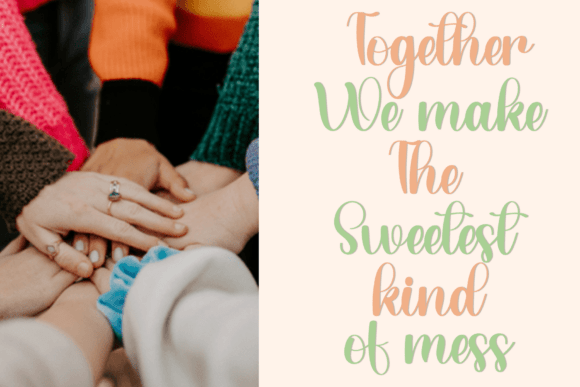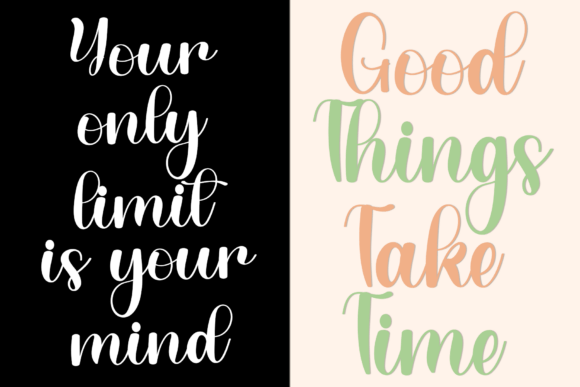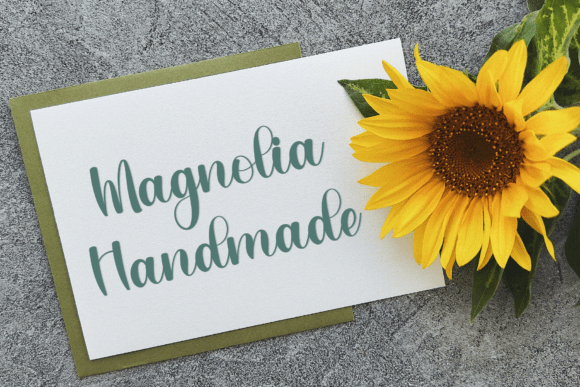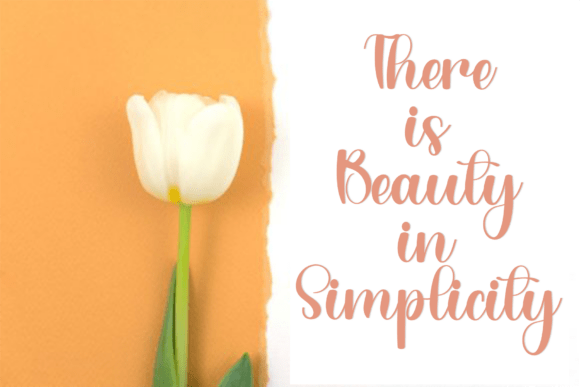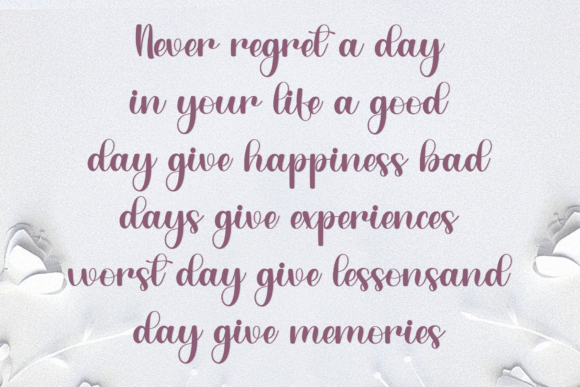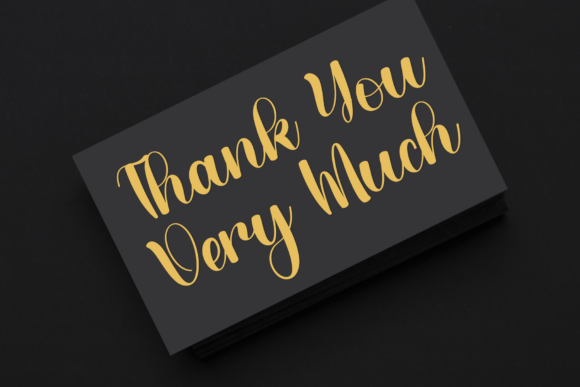
Bringing the Beach to Your Designs: A Deep Dive into the Beach Feeling Font
Ah, the elusive perfect font. You know, that one design element that can instantly elevate your project from meh to mesmerizing. I recall a particularly grueling design session where I was tasked with creating a vibrant beach party invitation. My usual go-to fonts just weren’t cutting it – they were either too bland, too ornate, or just plain mismatched the sunny, carefree vibe I was aiming for. That’s when I stumbled upon the Beach Feeling font, and let me tell you, it was love at first sight! ✨
What Makes Beach Feeling So Special?
The Beach Feeling font is a lovely script font that embodies the warmth and playfulness of a tropical sunset. Its bouncy, fluid letterforms and vibrant flow are perfect for capturing the essence of summer fun. Whether you’re working on travel branding, beach party invites, or sunny lifestyle blogs, this font is sure to bring a dose of Vitamin Sea to your designs.
- ✨ Playful yet elegant structure: The Beach Feeling font strikes the perfect balance between fun and sophistication, making it suitable for a wide range of design projects.
- ✅ Vibrant and energetic flow: The font’s fluid letterforms and lively rhythm instantly evoke the feeling of a tropical sunset.
- 💕 PUA encoded for easy access to glyphs and ligatures: With PUA encoding, you can effortlessly access the font’s amazing glyphs and ligatures, making it a breeze to add creative flourishes to your designs.
While the Beach Feeling font is an excellent choice for many design projects, there are a few minor considerations to keep in mind: 🤔
- ⚠️ Legibility at smaller sizes: As with many script fonts, Beach Feeling may lose some legibility when used at very small sizes. It’s best to use it at larger sizes (around 18-20pt or larger) to ensure optimal readability.
- ⚠️ Pairing with other fonts: While Beach Feeling is a stunning font on its own, it may require some care when pairing it with other fonts. Experiment with different combinations to find the perfect balance for your design.
The Story Behind Beach Feeling
While the true origins of Beach Feeling are shrouded in mystery, it’s easy to imagine a designer inspired by the sun-kissed beaches and tropical getaways of the world. Perhaps our designer was sipping a fruity cocktail on a Hawaiian beach, watching the sunset and brainstorming ways to capture that carefree essence in a font. Whatever the inspiration, Beach Feeling is a true gem that brings a touch of paradise to any design project.
Q: What type of projects is Beach Feeling best suited for?
A: Beach Feeling is perfect for travel branding, beach party invitations, sunny lifestyle blogs, and any design project that requires a playful, tropical vibe.